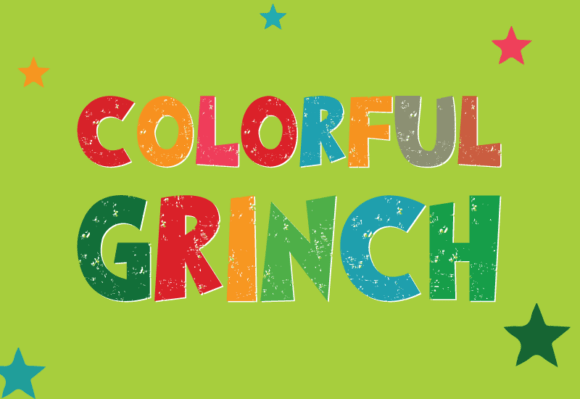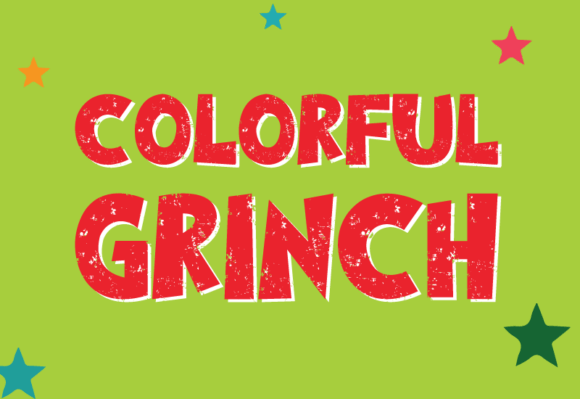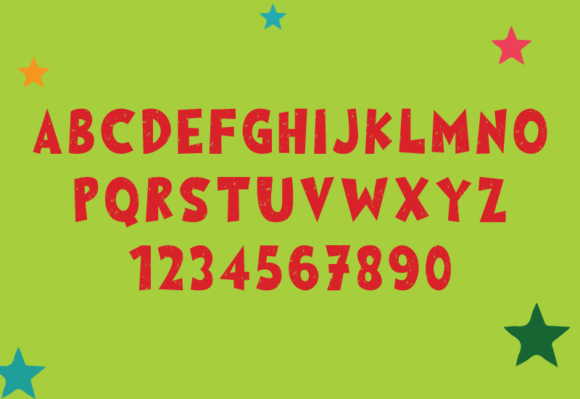
Bring Your Holiday Designs to Life with the Colorful Grinch Font
The holiday season is upon us, and what better way to get into the festive spirit than with a playful and vibrant font that’s sure to capture the hearts of everyone on your gift list? Look no further than the Colorful Grinch Font, a bold and joyful typeface inspired by the classic Grinch style that’s perfect for adding a splash of color and whimsy to any project.
A Festive Font for the Holiday Season
Whether you’re a designer, crafter, or simply someone who loves to get creative during the holidays, the Colorful Grinch Font is the perfect addition to your typography toolkit. This fun and festive font is designed to bring a touch of magic and mischief to your holiday designs, from invitations and cards to posters and merchandise.
Inspired by the Classic Grinch Style
The Colorful Grinch Font takes its cue from the beloved Dr. Seuss character, the Grinch, who has become an iconic symbol of the holiday season. With its bold lines, playful curves, and cheerful colors, this font embodies the spirit of the Grinch while adding a modern twist that’s sure to appeal to designers and crafters of all ages.
Perfect for a Variety of Holiday Projects
So, what can you create with the Colorful Grinch Font? The possibilities are endless! Here are just a few ideas to get you started:
- Holiday Invitations: Create festive invitations for your holiday party or gathering with the Colorful Grinch Font. Add a touch of whimsy and fun to your designs and make them stand out from the crowd.
- Christmas Cards: Design beautiful and playful Christmas cards for your loved ones using the Colorful Grinch Font. Add a personal touch to your holiday greetings and make them truly special.
- Greeting Posters: Create eye-catching posters for your holiday event or promotion with the Colorful Grinch Font. Grab the attention of your audience and add a festive touch to your marketing materials.
- Festive Merchandise: Design fun and playful merchandise, such as t-shirts, mugs, and tote bags, with the Colorful Grinch Font. Perfect for holiday gifts or promotional items.
What Makes the Colorful Grinch Font So Special?
So, what sets the Colorful Grinch Font apart from other festive fonts? Here are just a few features that make it a standout:
- Bold and Joyful: The Colorful Grinch Font is designed to be bold and joyful, making it perfect for adding a touch of whimsy and fun to your holiday designs.
- Playful Curves: The font features playful curves and lines that give it a lively and energetic feel.
- Cheerful Colors: The Colorful Grinch Font comes in a range of cheerful colors that are sure to add a pop of color to your designs.
- Timeless Charm: Despite being inspired by a classic character, the Colorful Grinch Font has a timeless charm that’s sure to appeal to designers and crafters of all ages.
Tips for Using the Colorful Grinch Font
Here are a few tips for getting the most out of the Colorful Grinch Font:
- Experiment with Colors: Don’t be afraid to experiment with different colors and combinations to find the perfect look for your design.
- Mix and Match: Try mixing and matching the Colorful Grinch Font with other fonts and design elements to create a unique and eye-catching design.
- Keep it Simple: Don’t overcomplicate your design – sometimes, less is more. Let the Colorful Grinch Font be the star of the show!
| Author | GraphicsNinja |
Bring your holiday designs to life with the Colorful Grinch Font, a playful and festive typeface that’s perfect for the Christmas holiday season. With its bold lines, playful curves, and cheerful colors, this font is sure to add a touch of magic and mischief to any project. Whether you’re a designer, crafter, or simply someone who loves to get creative during the holidays, the Colorful Grinch Font is a must-have for your typography toolkit. So why wait? Get creative and make every design stand out with a cheerful personality!